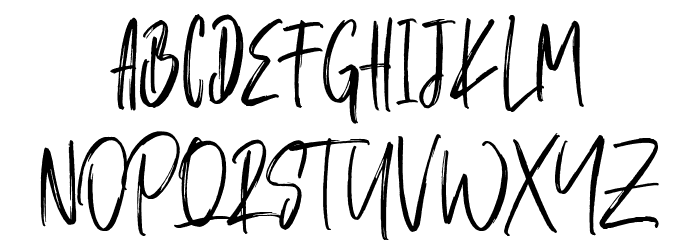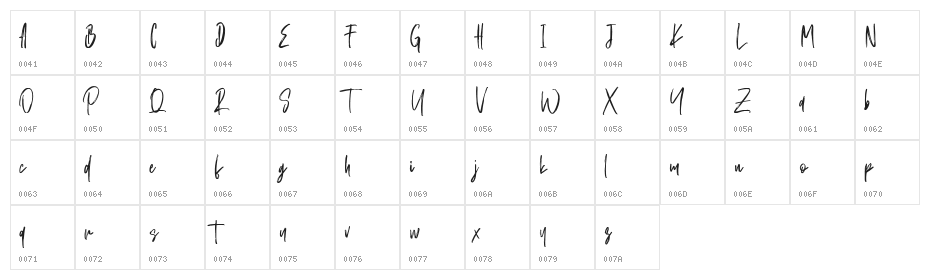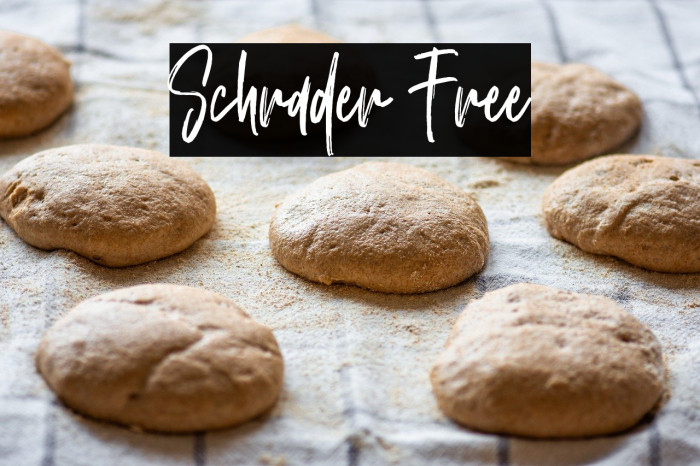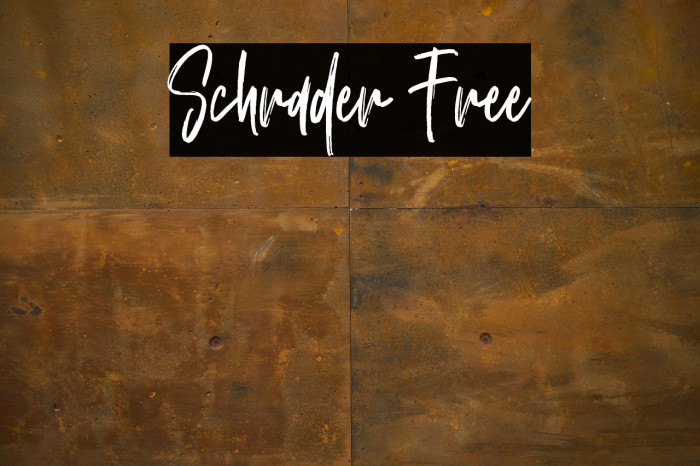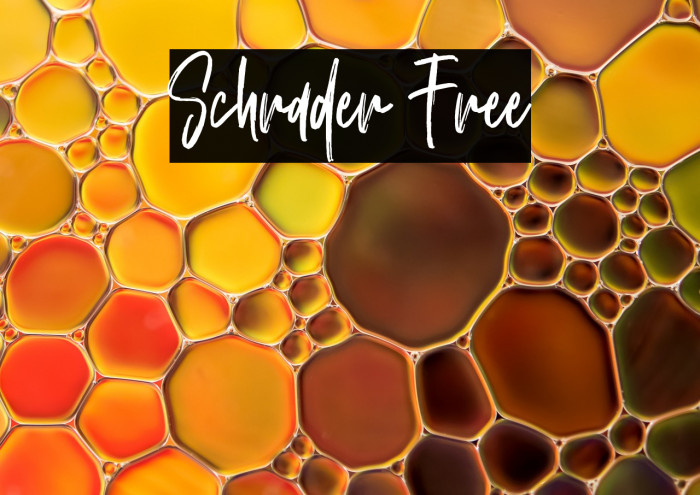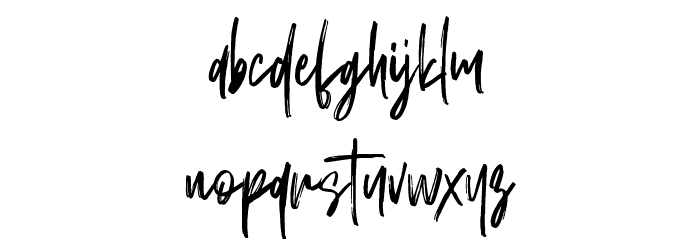
Schrader Free Font
Schrader Free Description
This font features a dynamic and expressive handwritten style, characterized by its bold and fluid strokes. The letters exhibit a natural, free-flowing form that mimics the spontaneity of hand-drawn script. The uppercase and lowercase letters maintain a consistent aesthetic, with elongated lines and slightly irregular shapes that add to its charm. The font's playful yet sophisticated appearance makes it suitable for creative projects. Its unique style is enhanced by the varying thickness of the strokes, giving it a lively and energetic feel. The font is versatile, capable of conveying both elegance and casualness, making it ideal for a range of design applications.